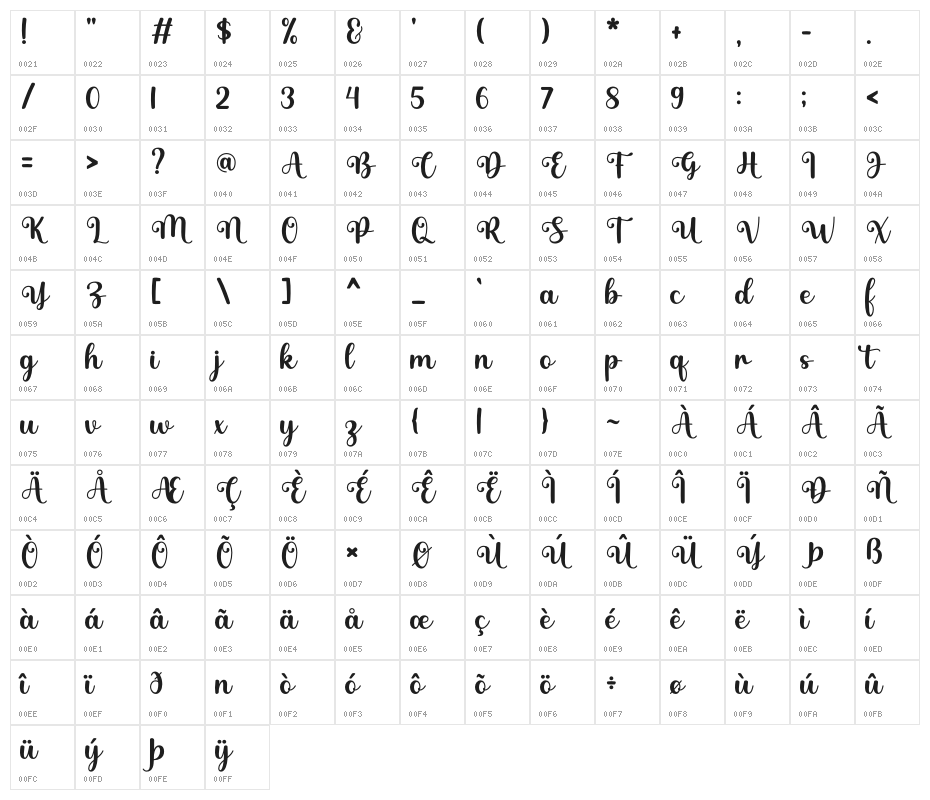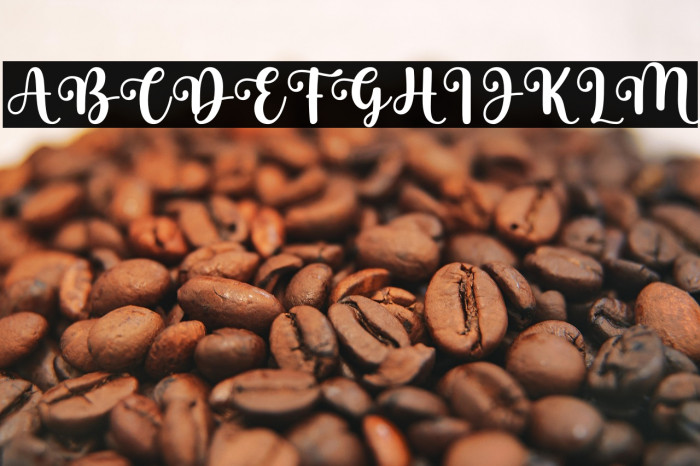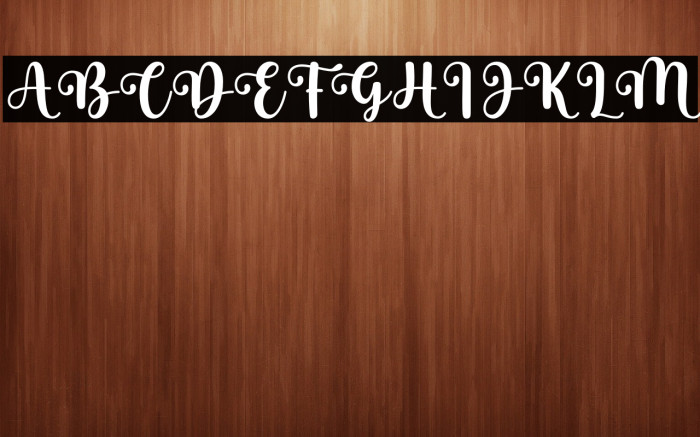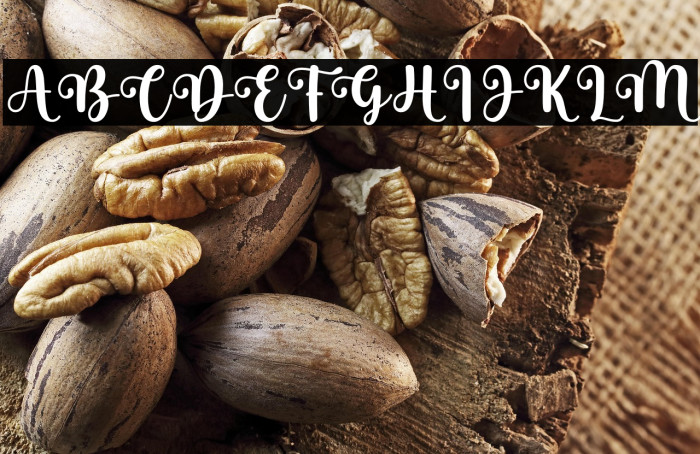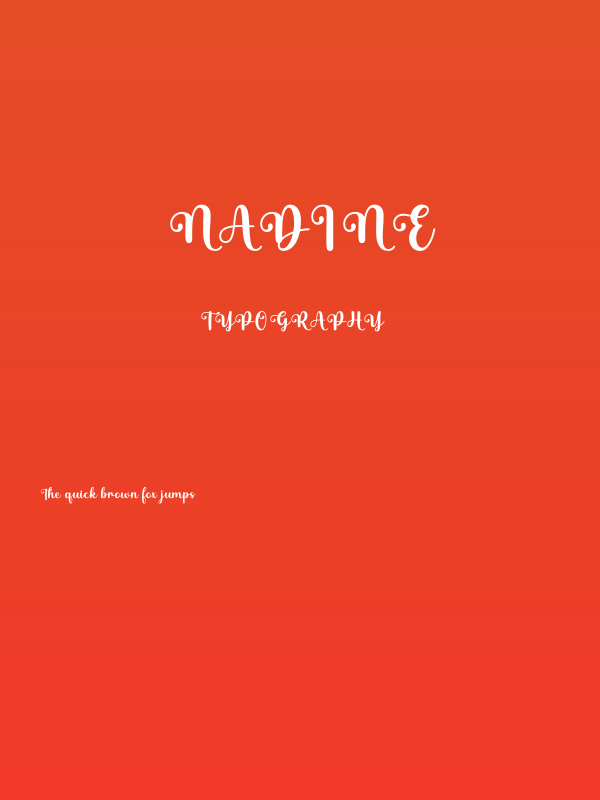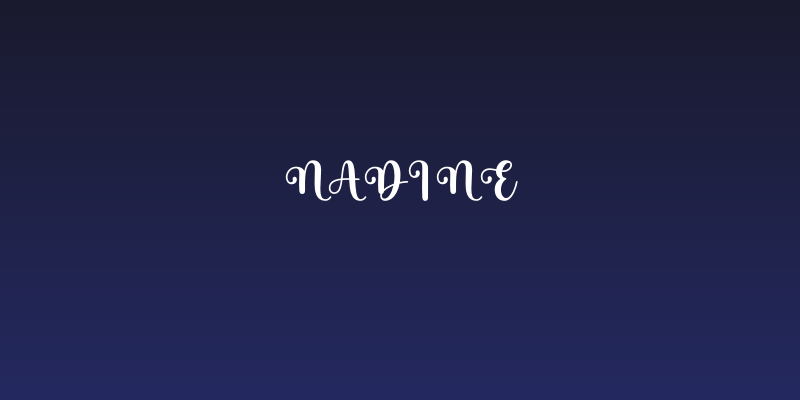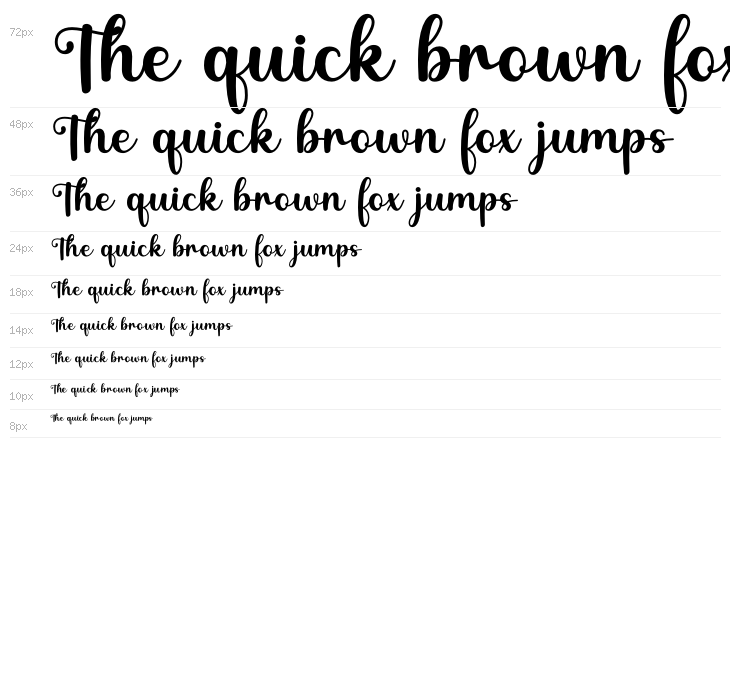
Nadine Font
Nadine Description
This font features a playful and elegant script style with a flowing, cursive design. The uppercase letters are adorned with decorative swashes, adding a whimsical touch, while the lowercase letters maintain a smooth and consistent flow. The numerals are bold and clear, complementing the overall style. Special characters are designed with the same attention to detail, ensuring a cohesive look across all glyphs. The font's bold weight and medium contrast make it suitable for various creative applications, providing a sense of charm and sophistication.